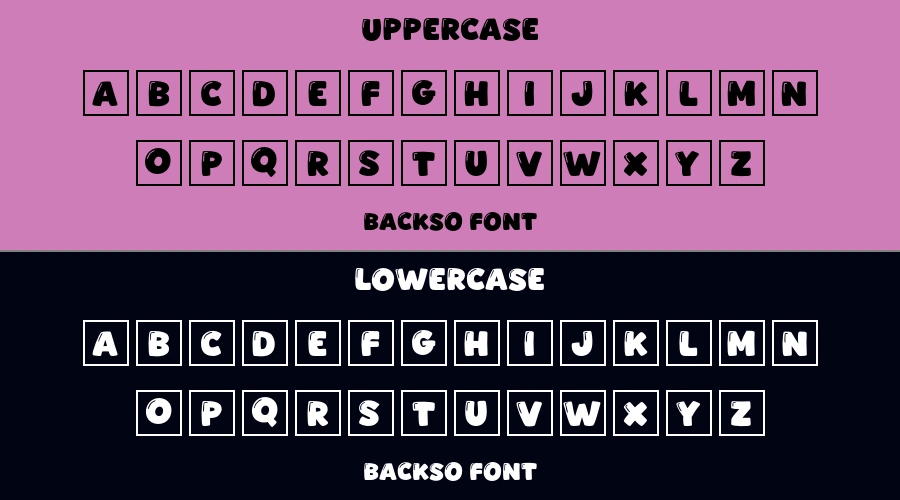
About Backso Font
Backso Font represents a sophisticated approach to type design, balancing brush influence with consistency. Perfect for presentation decks, this font family showcases impressive precision and refinement throughout its character set. Designers appreciate its versatility and reliability.
Designers will appreciate nuanced touches including harmonious shapes and stylistic sets, adding sophistication to any project. These features become apparent in running text, where emotional response matters most. The careful treatment of letterfit and historical context ensures optimal performance.